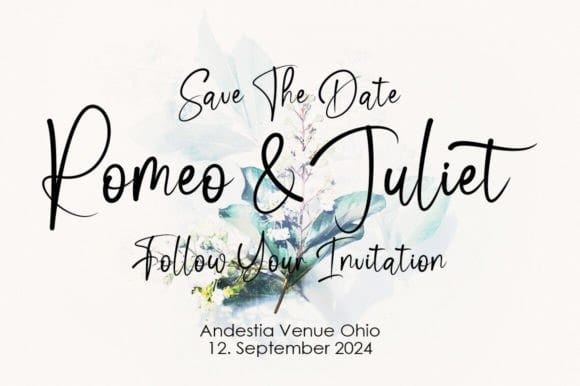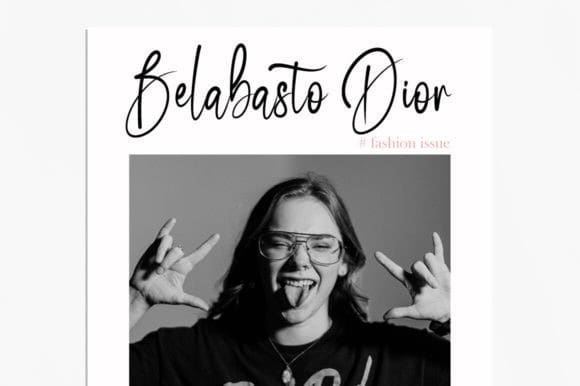
Dolphina Script Font
Dolphina Script Font is a stylish and incredibly elegant handwritten script font. It is defined by smooth curves and is perfect for fashion branding or editorial designs. Use this font for your designs and explore its endless possibilities.